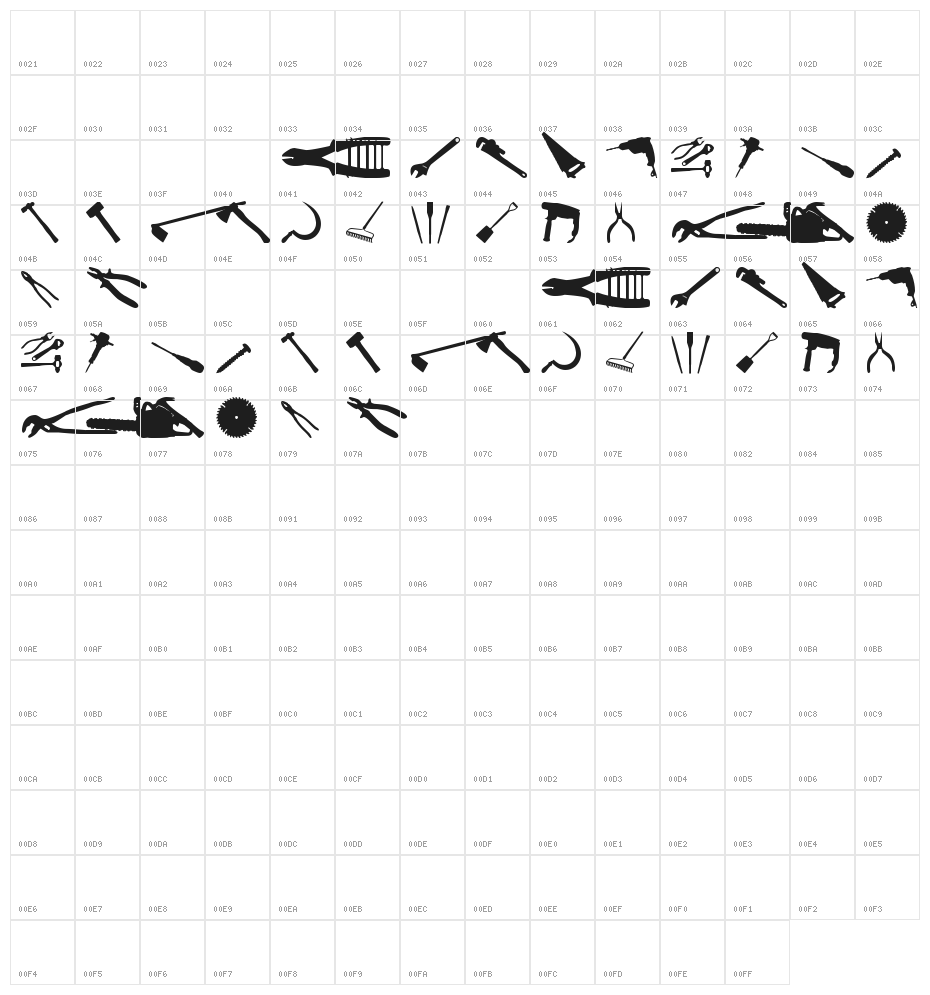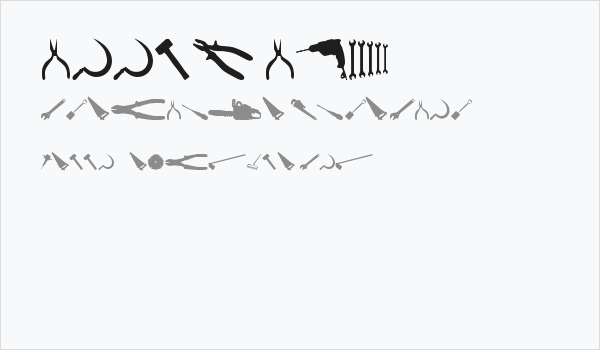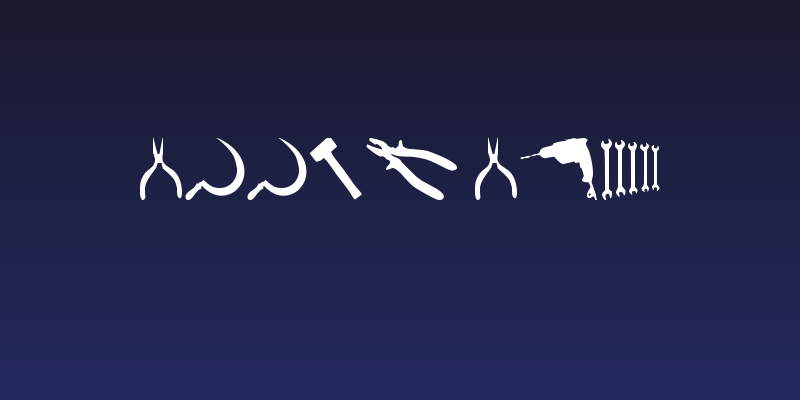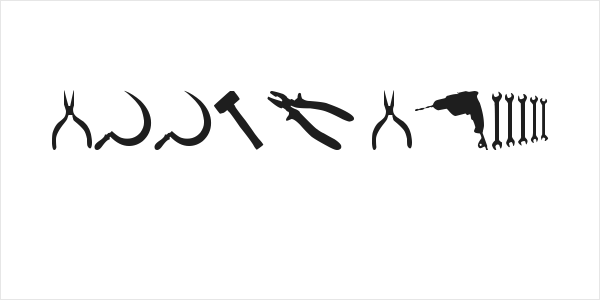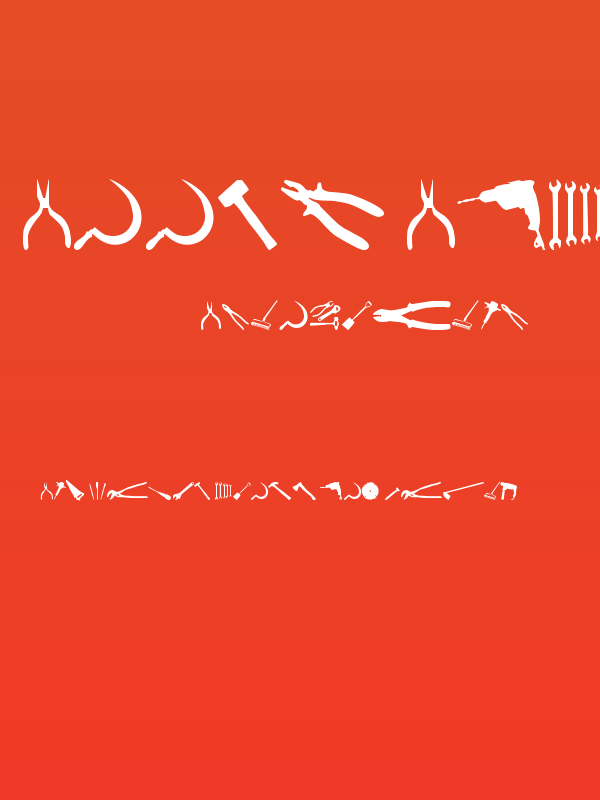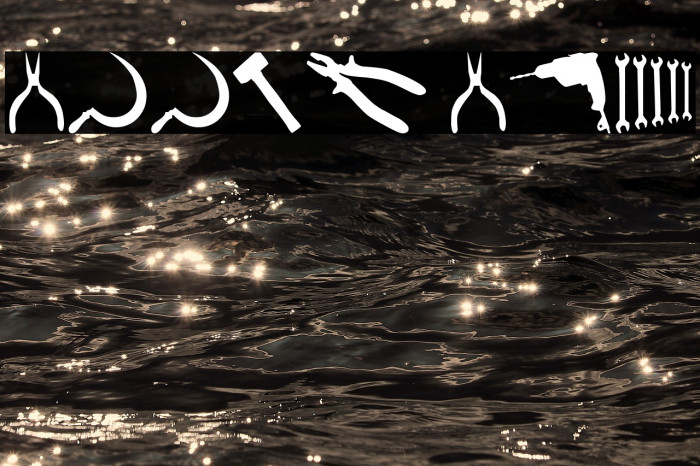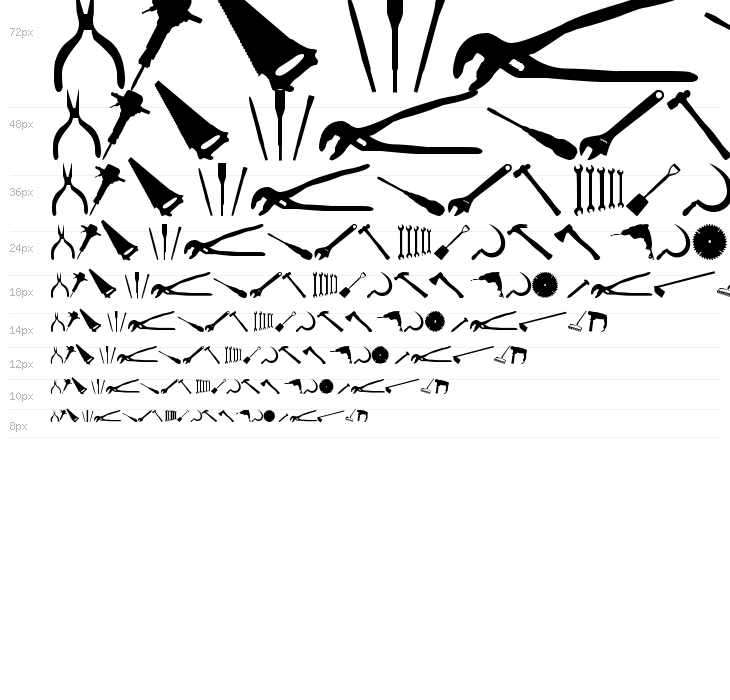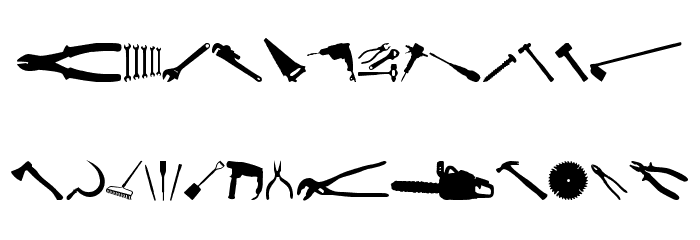
TOOLZ TFB Font
TOOLZ TFB Description
This unique and creative font is composed entirely of various tool silhouettes, each letter and character represented by a distinct tool shape. The design cleverly integrates common tools such as pliers, hammers, saws, and drills to form the alphabet and numbers. The font is highly decorative and thematic, making it ideal for projects related to construction, DIY, or any tool-related theme. Its playful yet bold appearance ensures it stands out, making it suitable for eye-catching designs.
| Use Case | Logos, Posters, Themed Signage |
| Proposed Projects | Ideal for construction company logos, DIY project branding, tool shop signage, and themed event posters. |